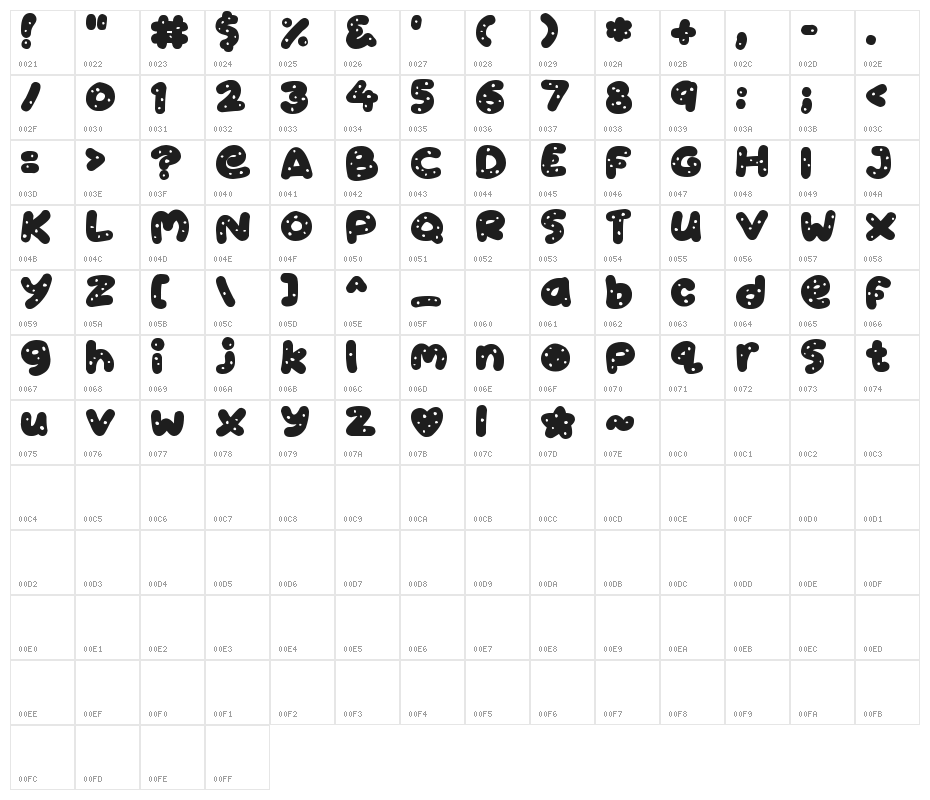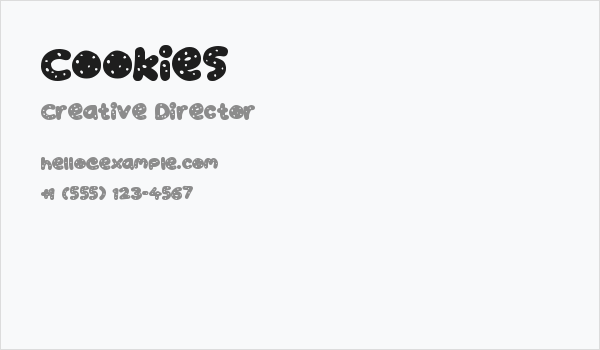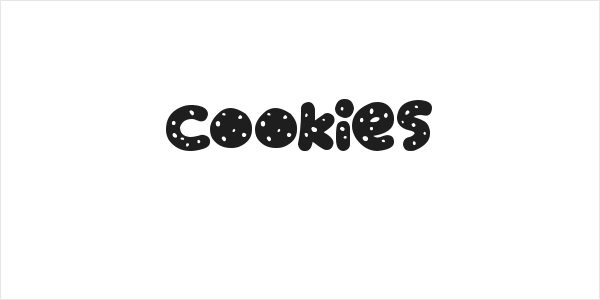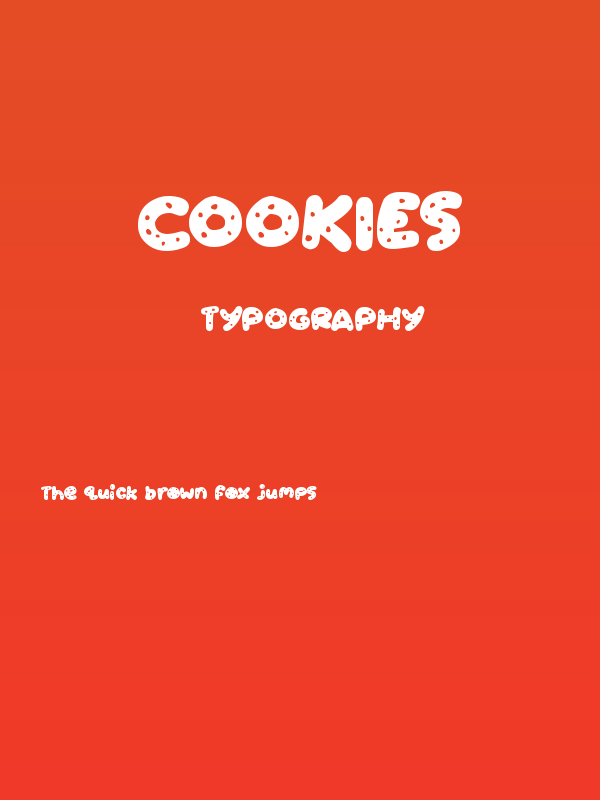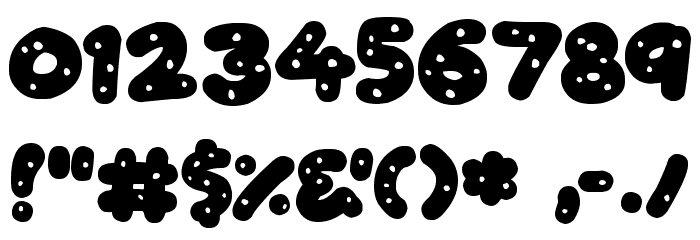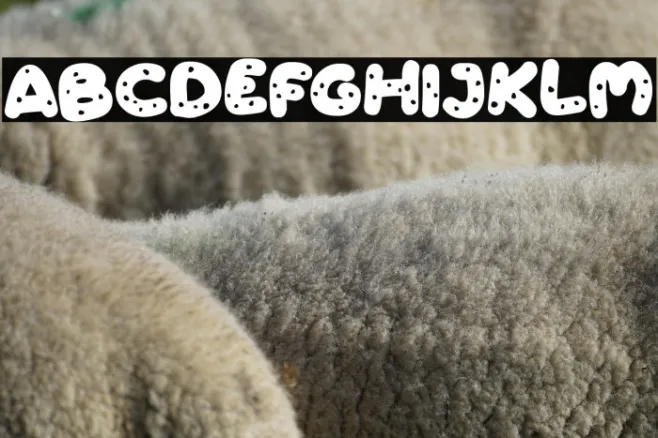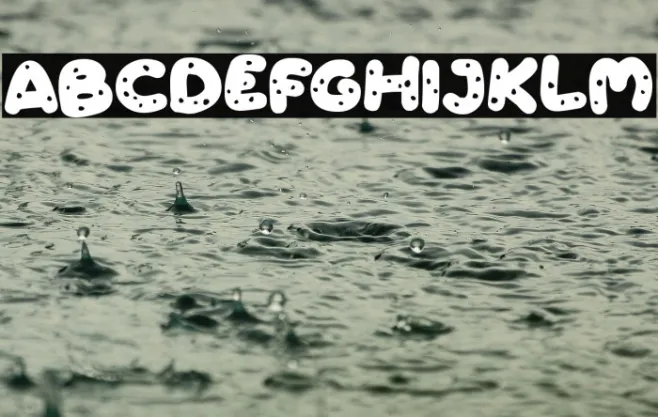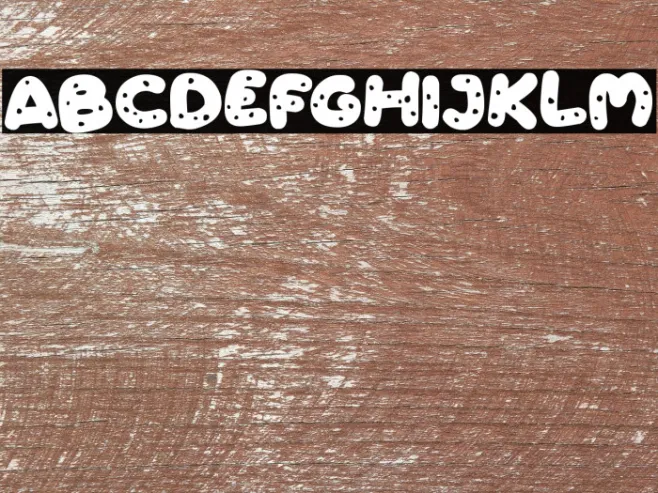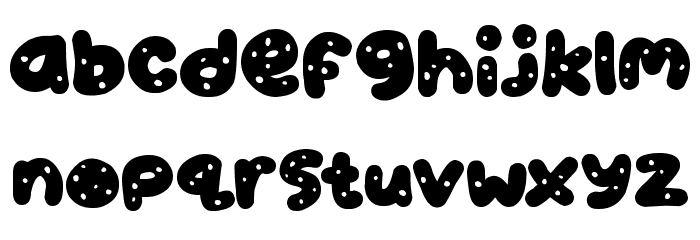
Cookies Font
Cookies Description
This playful and whimsical font features bold, rounded characters with a unique dotted pattern reminiscent of chocolate chips on cookies. The letters are thick and bubbly, creating a fun and inviting appearance. Each character is distinct, with a consistent style that maintains readability while adding a touch of humor and lightheartedness. The font includes both uppercase and lowercase letters, numbers, and a variety of special characters, making it versatile for different design needs. Its decorative nature makes it ideal for projects that require a friendly and approachable aesthetic.
| Use Case | Headlines, Logos, Packaging |
| Proposed Projects | Perfect for children's books, playful branding, party invitations, and food-related packaging. |